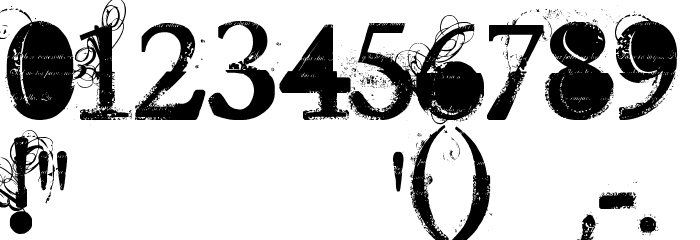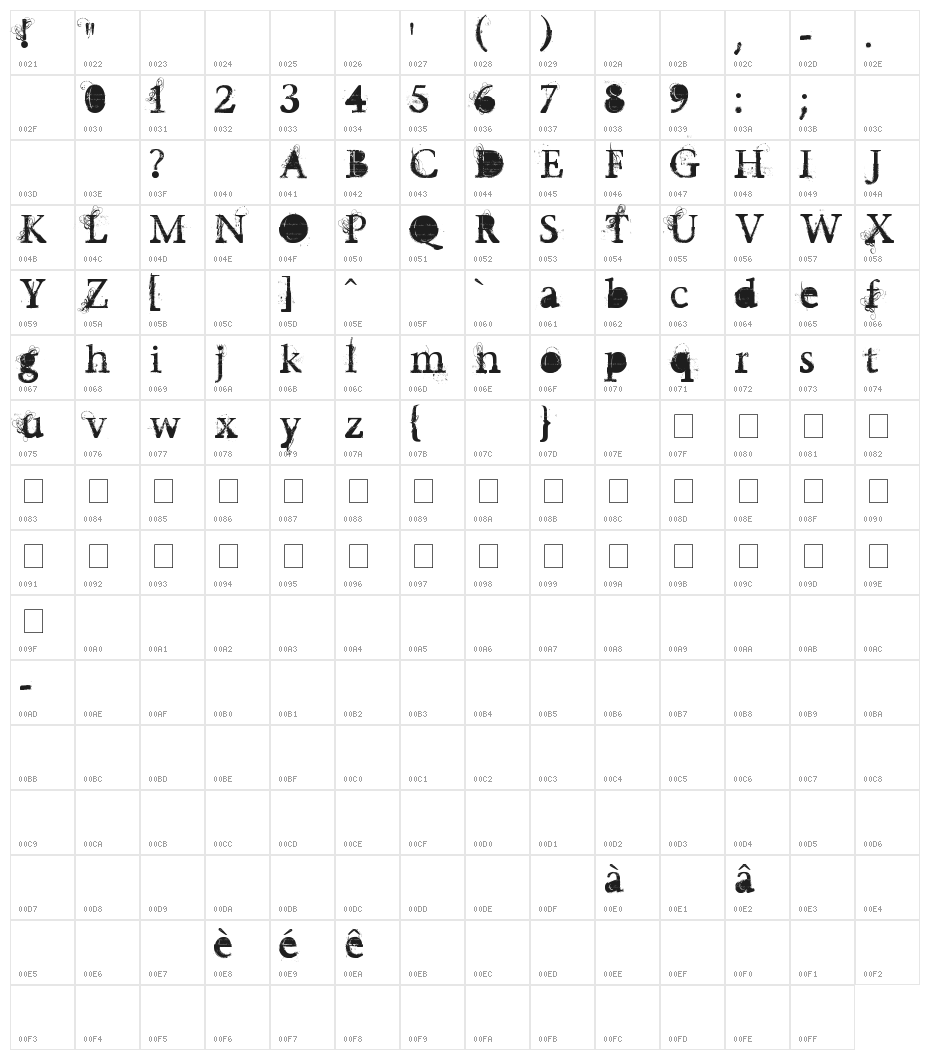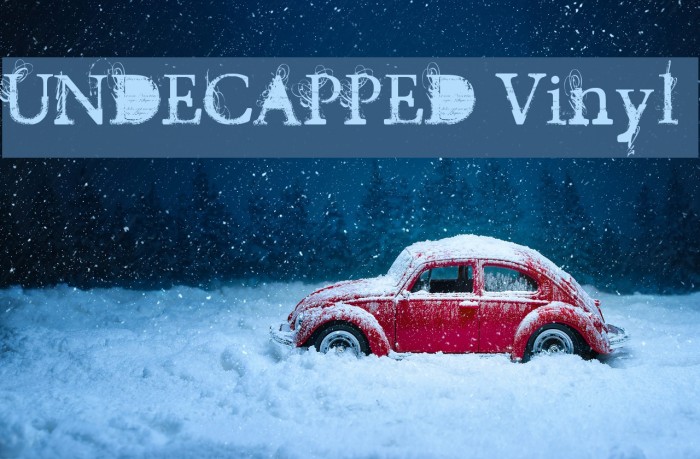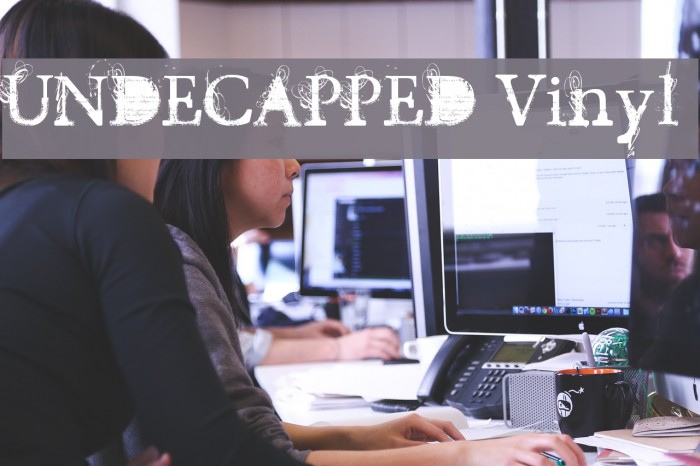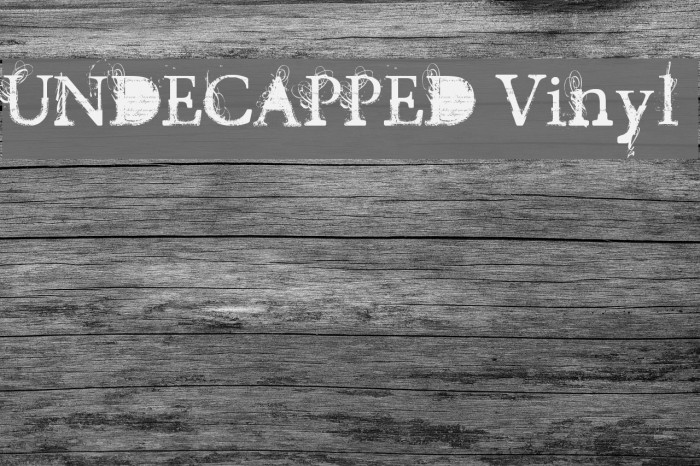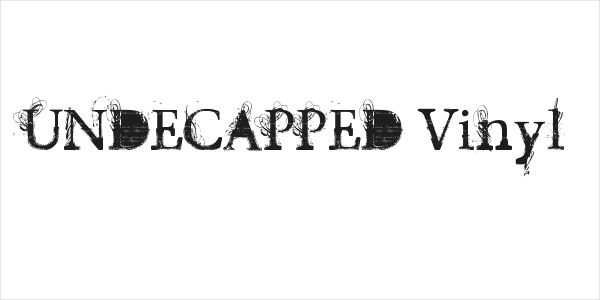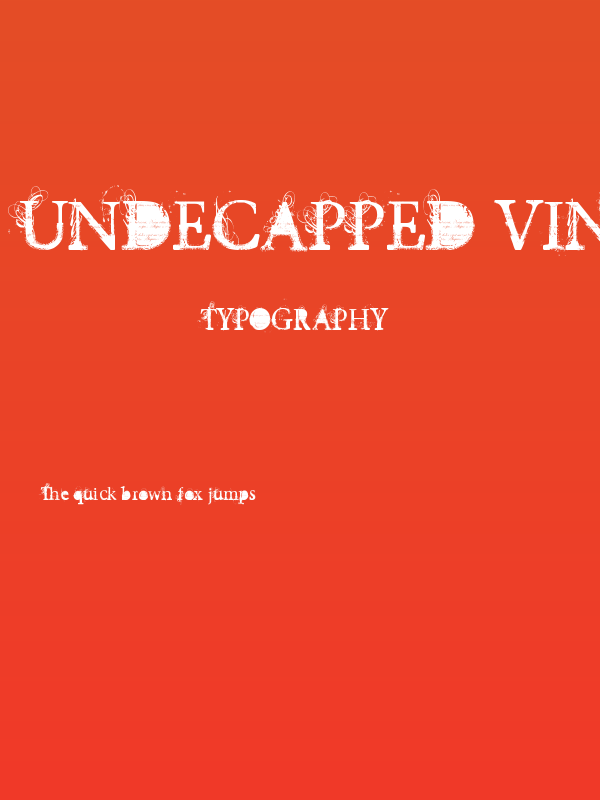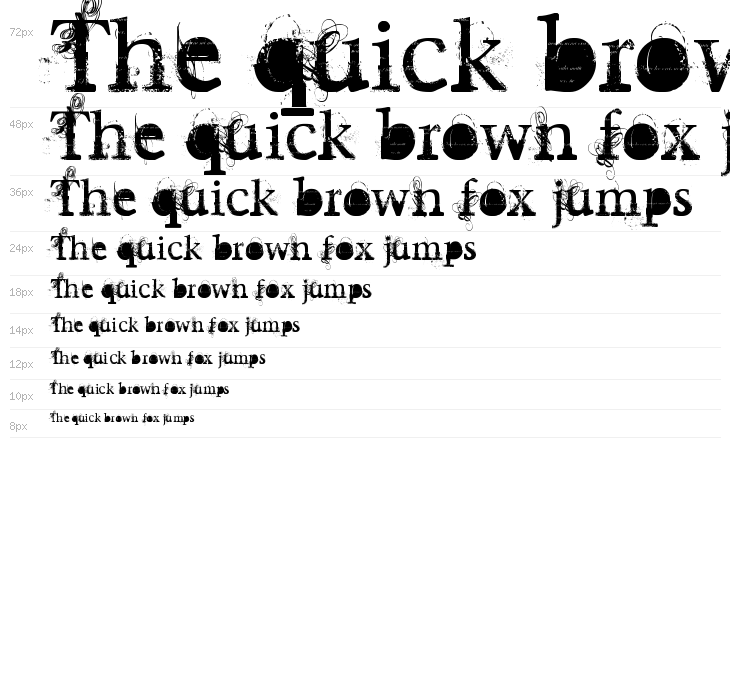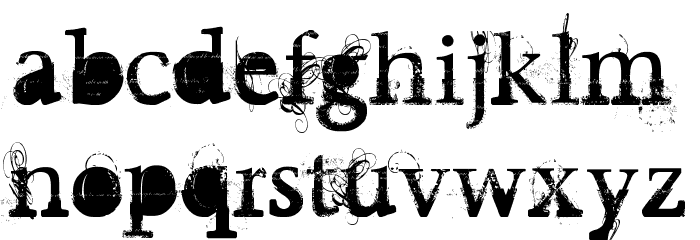
UNDECAPPED Vinyl Font
UNDECAPPED Vinyl Description
This font features a distressed, grunge style with decorative flourishes that give it a unique, artistic appearance. The uppercase and lowercase letters are bold and heavily textured, creating a sense of movement and energy. The numbers and special characters follow the same design, maintaining consistency across the character set. The font's rough edges and irregularities add to its charm, making it ideal for projects that require a bold, eye-catching statement. Its decorative elements are reminiscent of vintage or retro styles, yet it maintains a modern edge with its bold presence.
| Overall Style | Grunge, Vintage, Decorative |
| Proposed Projects | Ideal for album covers, posters, branding for edgy or artistic products, and any project needing a bold, statement-making font. |